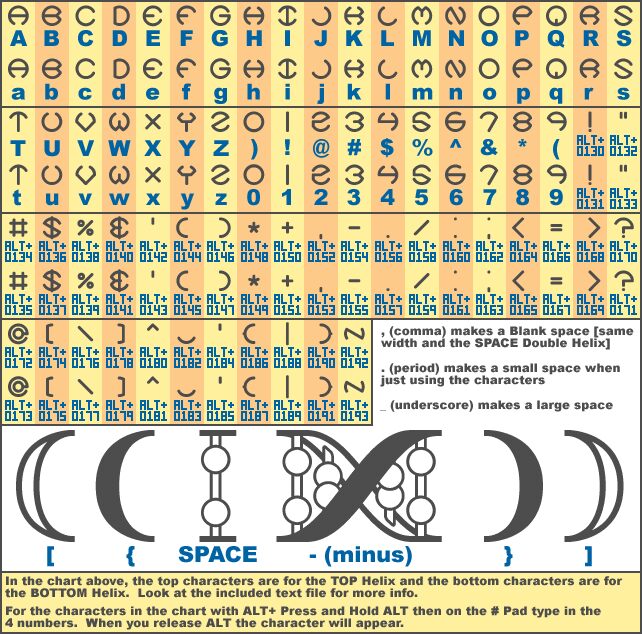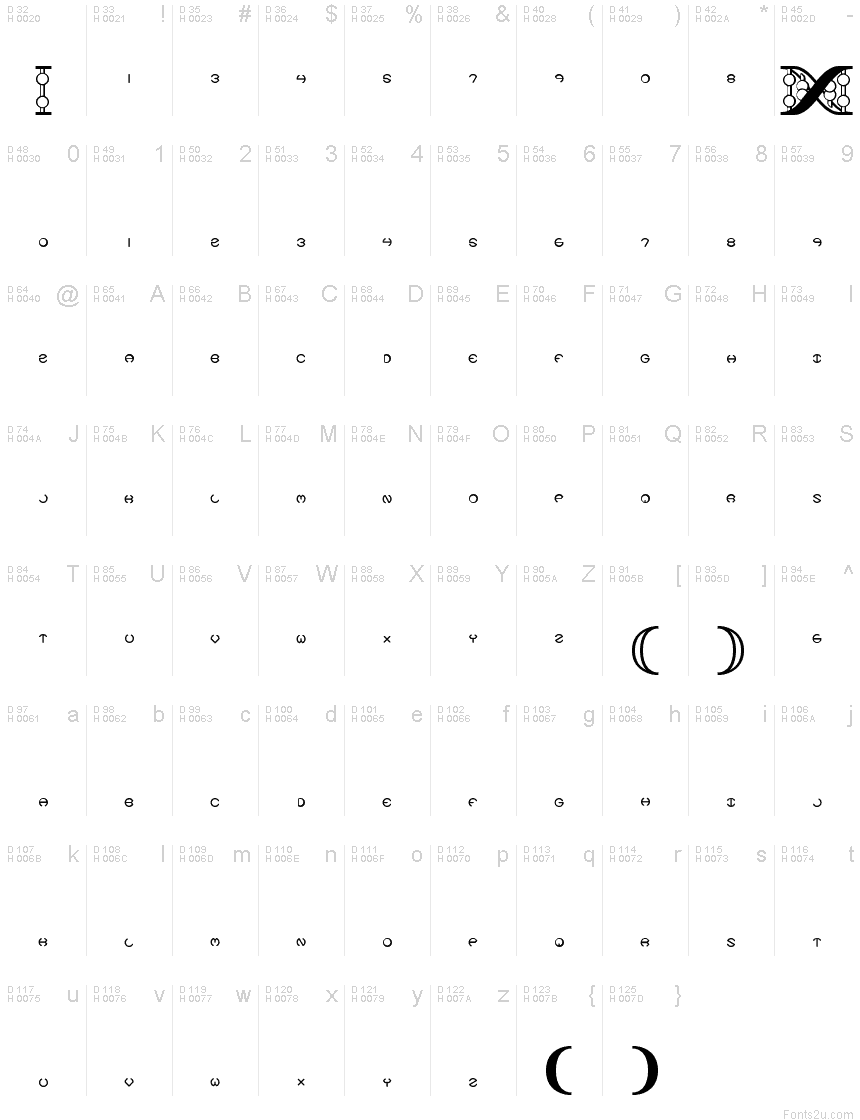
Code Of Life BRK
Code Of Life BRK font by ÆNIGMA FONTS is a free sci‑fi display typeface that looks like it’s wired straight into a control panel. Its characters run on twin vertical rails with circular “nodes” and split inner forms, giving every word the feel of a futuristic circuit or genetic diagram. The clean, monoline strokes keep it crisp and legible even as the letterforms twist into almost symbol-like shapes.
Using Code Of Life BRK, headlines feel encoded, secretive, and a little experimental. This free font shines on game titles, cyberpunk posters, tech event graphics, electronic album covers, motion graphics, and hacker‑themed branding. Set it large so the circular modules and internal gaps read clearly, and pair it with a neutral geometric sans for supporting text to keep the layout readable while the code-like letters steal the spotlight.